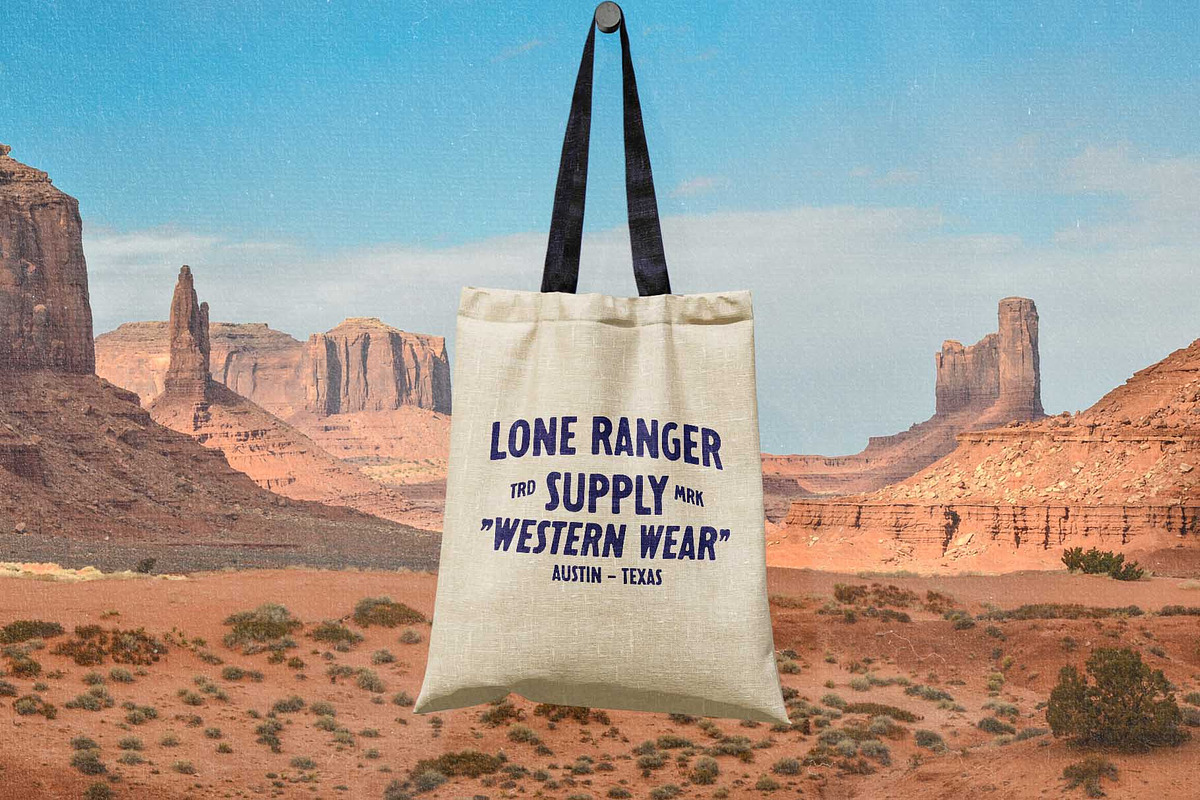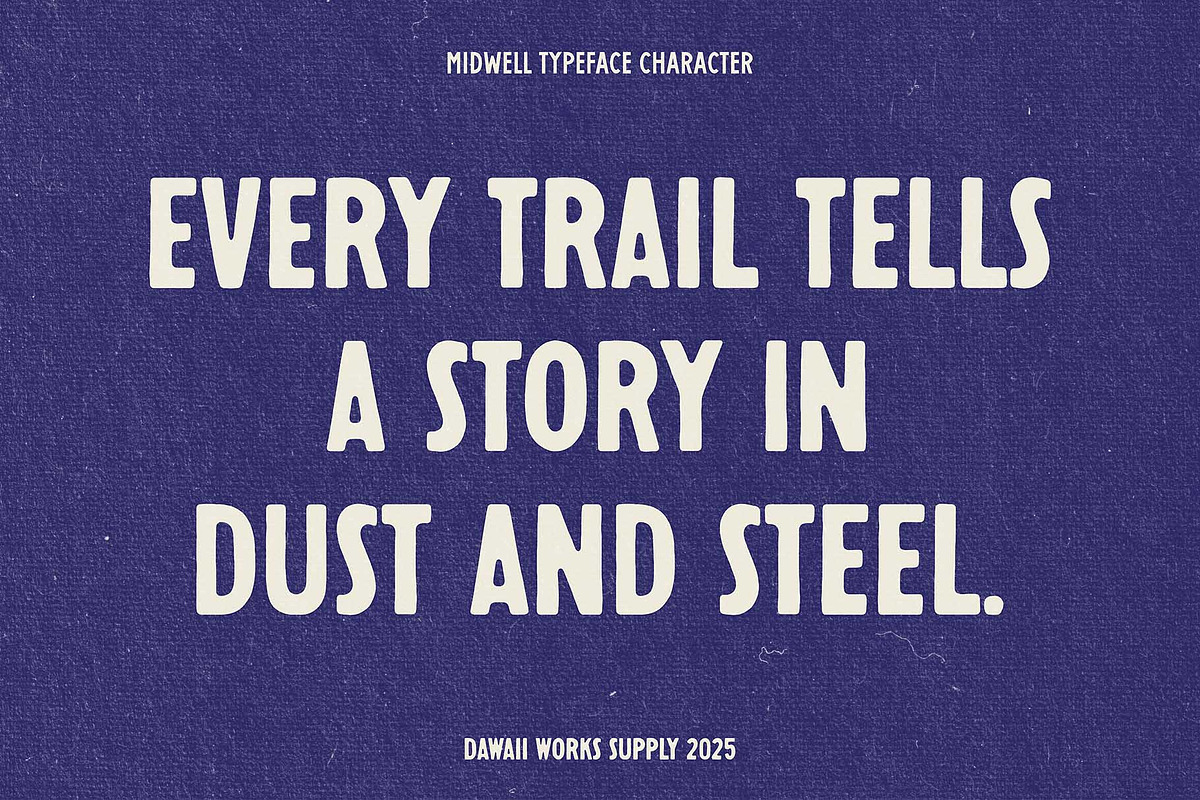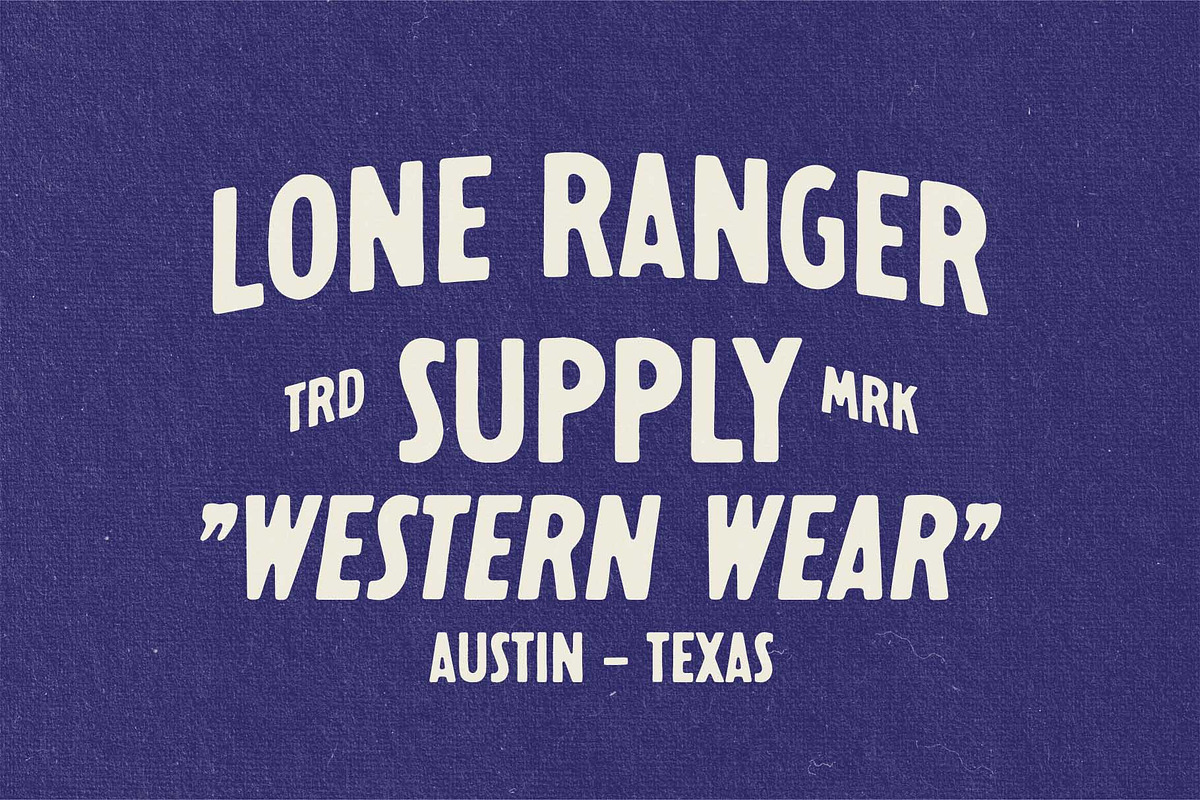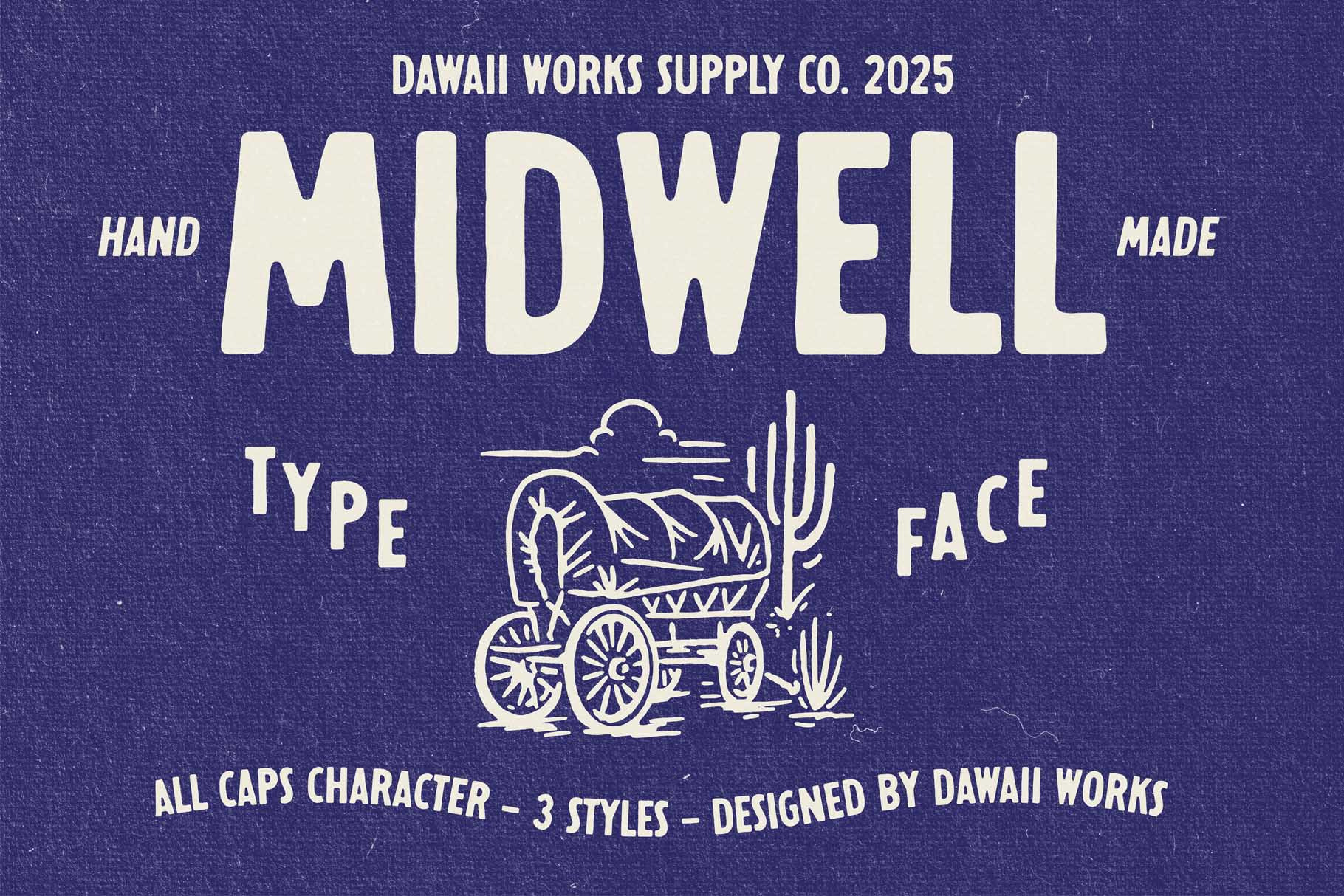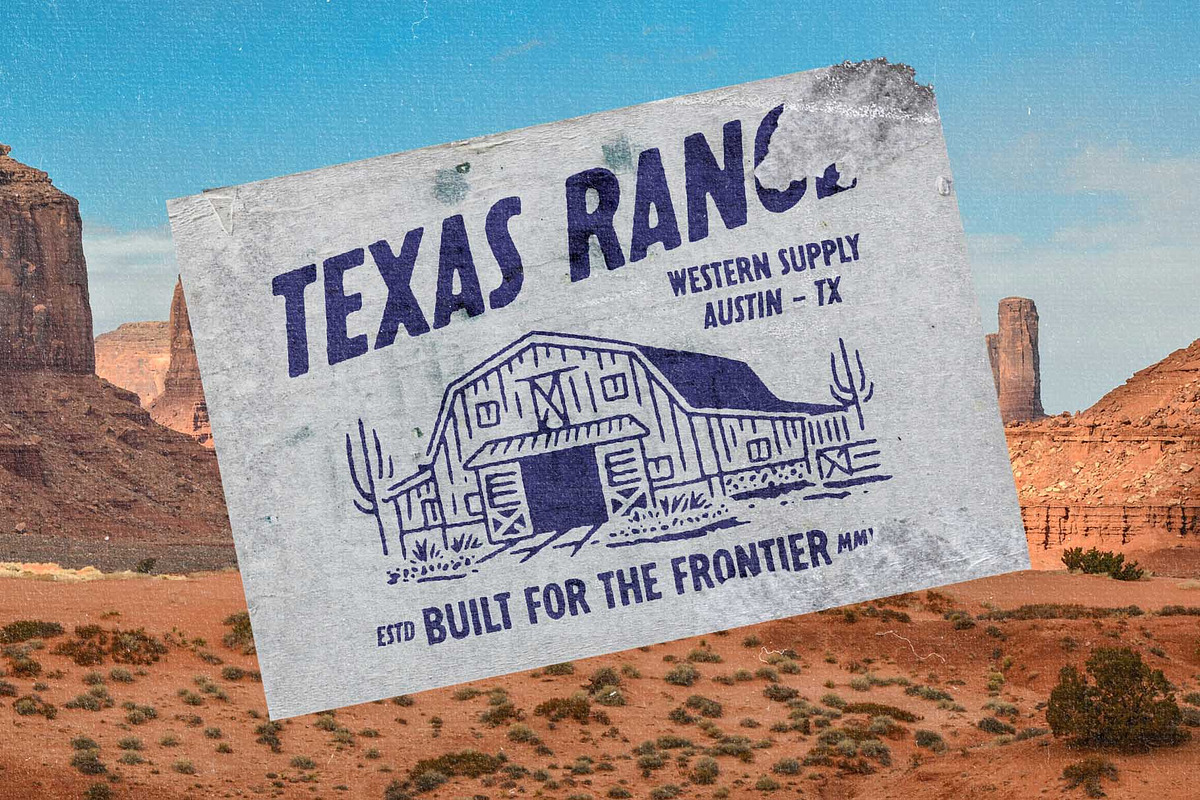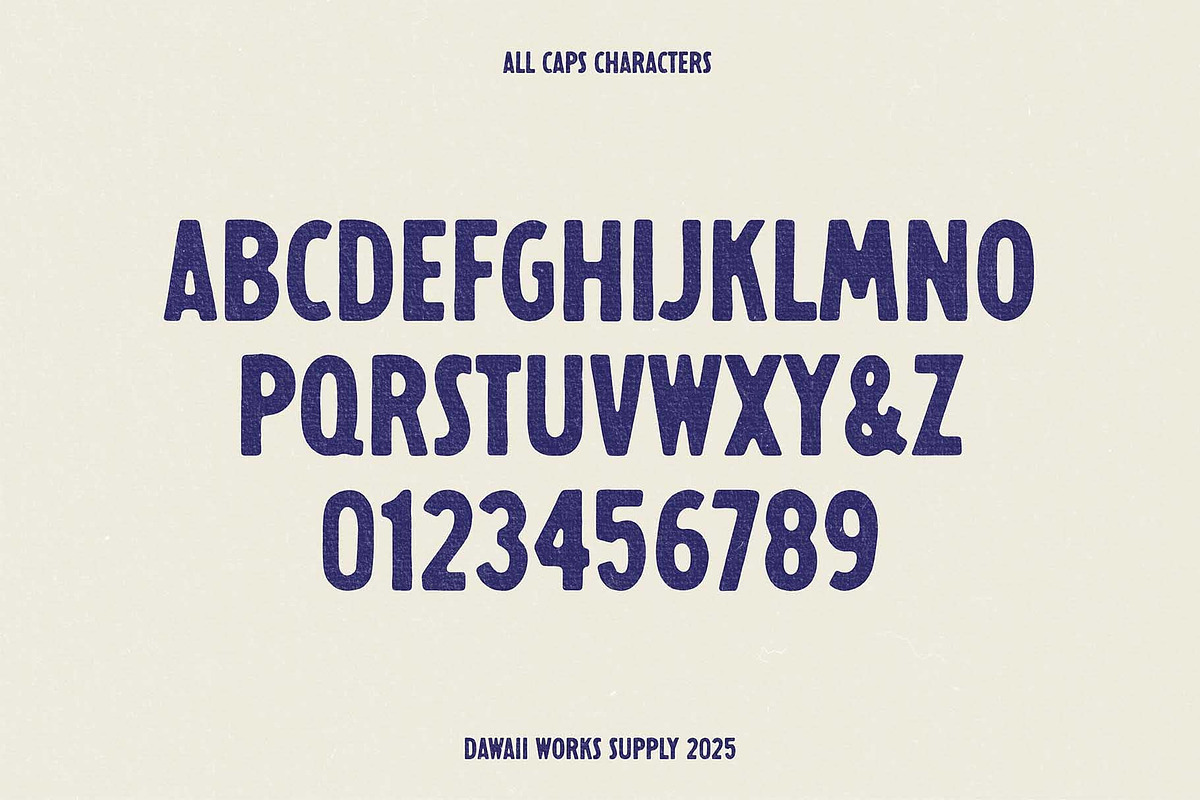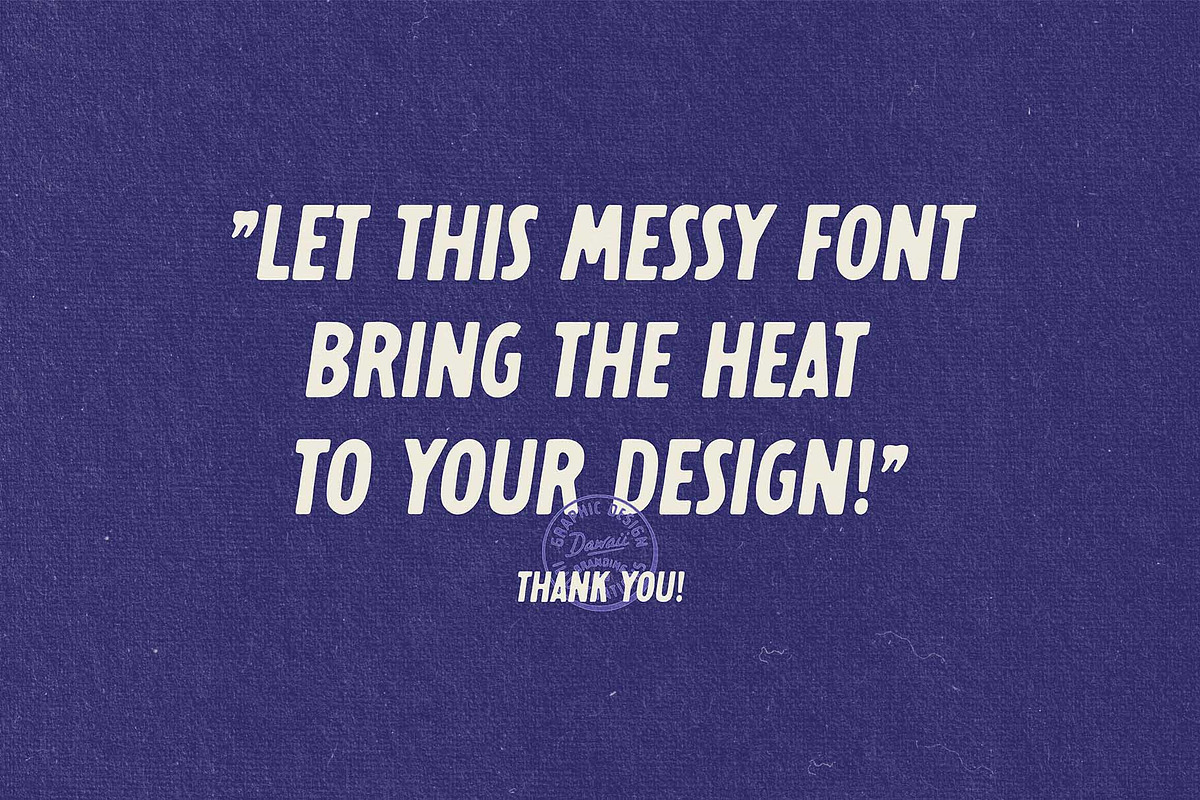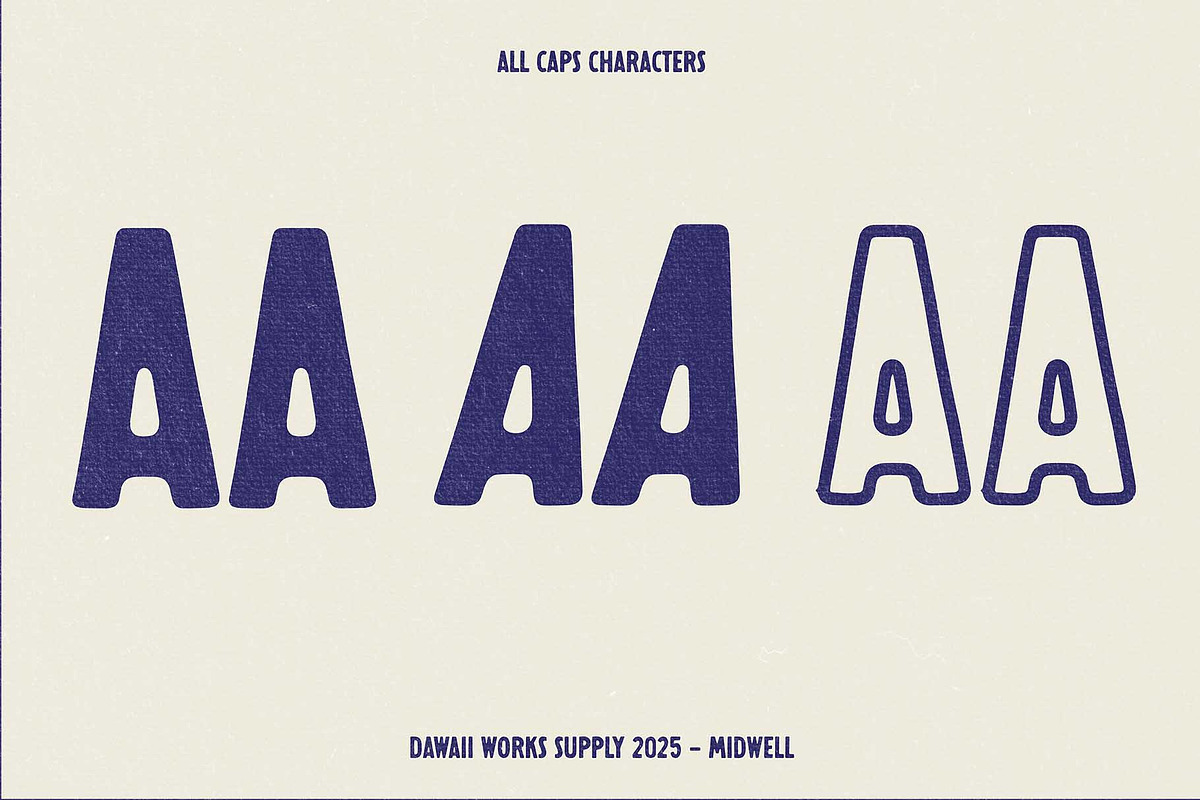
Midwell Typeface
Midwell is a vintage-inspired sans serif font inspired by old travel posters and classic ephemera. It comes in three styles — Regular, Italic, and Outline (.otf) — perfect for logos, packaging, posters, and apparel designs. Simple, versatile, and easy to remember, Midwell brings a touch of timeless adventure to any project. If you have any issues or questions, please contact dawaiistd@gmail.com